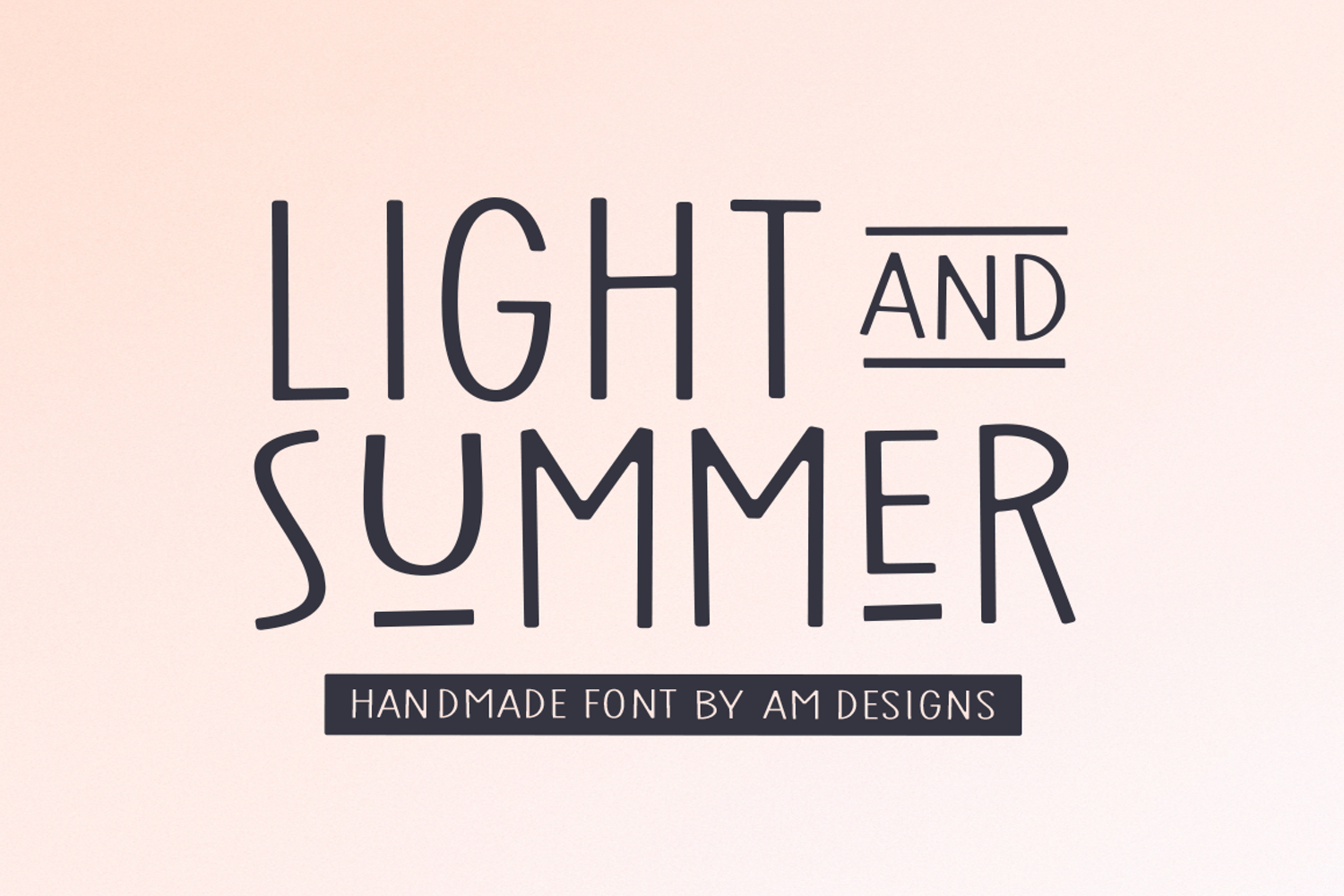
Light & Summer Font
Light & Summer
Light & Summer Thick
Light & Summer Draft
Light & Summer is a relaxed and modern handwriting font that brings a fresh and cheerful atmosphere to your creative projects.